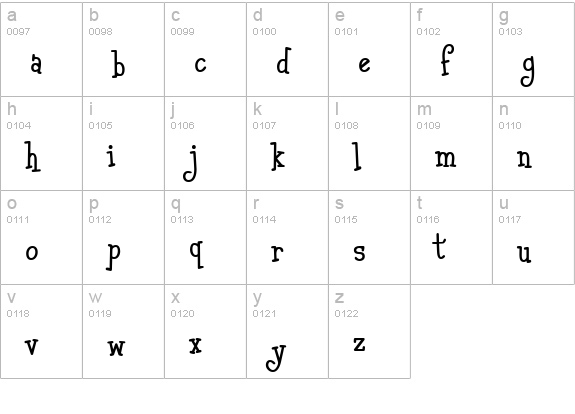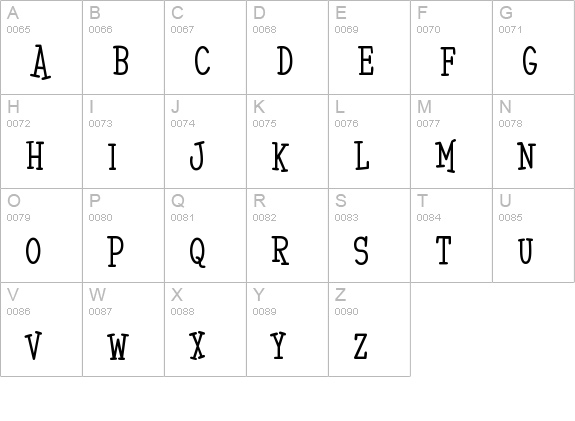
Malihini Tahitian BTN Cond Font Details
Malihini Tahitian BTN Cond is a distinctive, condensed-width variant in the Malihini typeface family \xE2\x80\x94 well suited to design and typography projects.
Malihini Tahitian BTN Cond is a stunning display font that is sure to make your designs stand out. With its condensed letterforms and unique artistic details, this font adds a touch of elegance and sophistication to any project. Whether you are designing a logo, creating a poster, or crafting a headline, Malihini Tahitian BTN Cond will bring a sense of style and professionalism to your work. What makes Malihini Tahitian BTN Cond even more special is that it is available for free. That's right, you can download this incredible font at FontsMarket.com without spending a dime. This means that you can elevate your designs without breaking the bank. So why wait? Download Malihini Tahitian BTN Cond today and start creating beautiful, eye-catching designs that will leave a lasting impression.